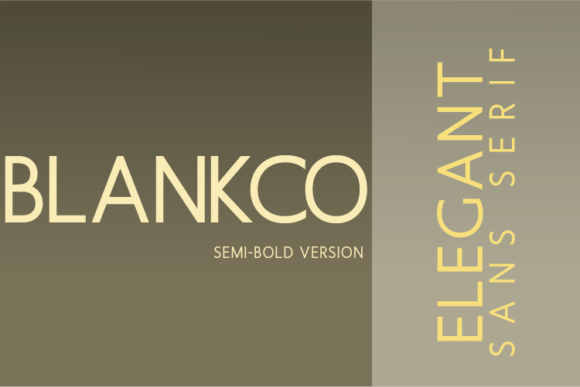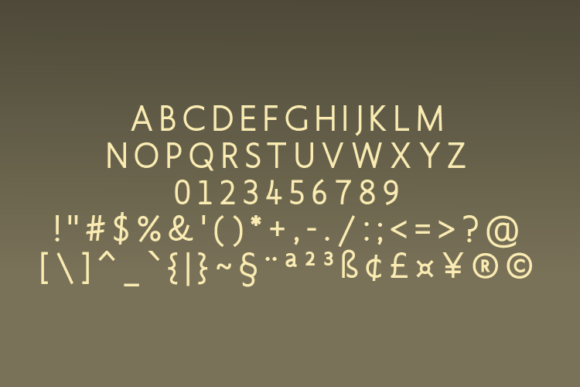
Blankco Semi-Bold Font
About Blankco Semi-Bold Font
Blankco is a fresh, geometric, sans-serif font inspired by iconic typefaces like Futura and Avant Garde. Blankco has a big x-height value, geometrical letterforms, sharp edges and a small stroke contrast, similar to the neo-grotesk fonts of the 20th Century. The typeface is extremely versatile and can be used in Magazines, Posters, Branding, Websites and much more!